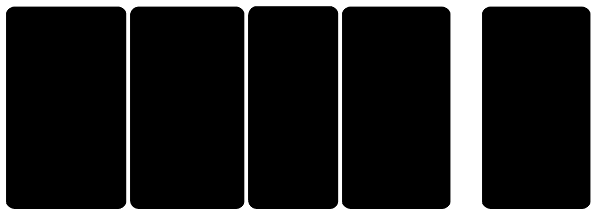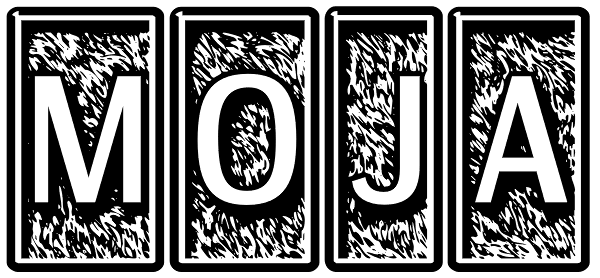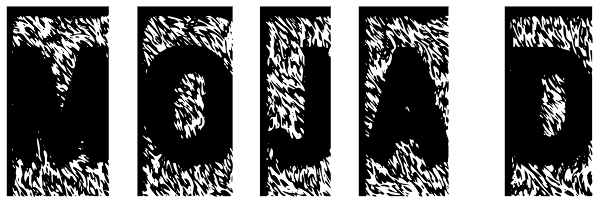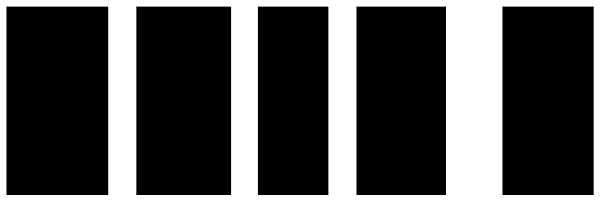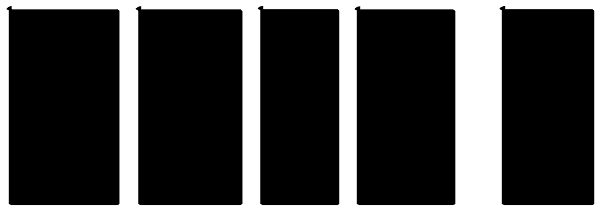
Moja
Moja equals fur. If your application allows, you can use multiple layers and colours to create happy letters, each in their own respective hairy letterboxes. For monochromatic situations, use pre-blended regular Moja. BTW: Moja loves Meloche.